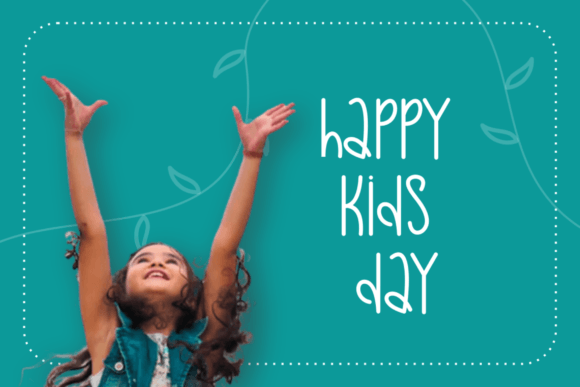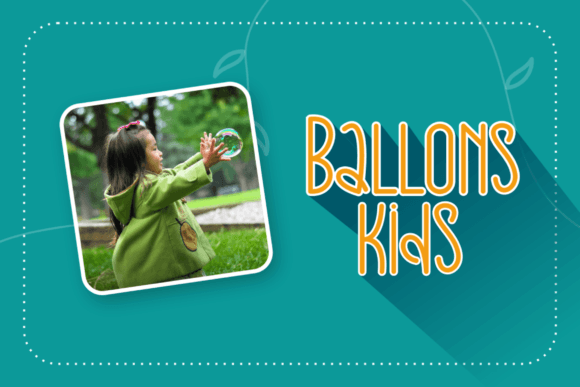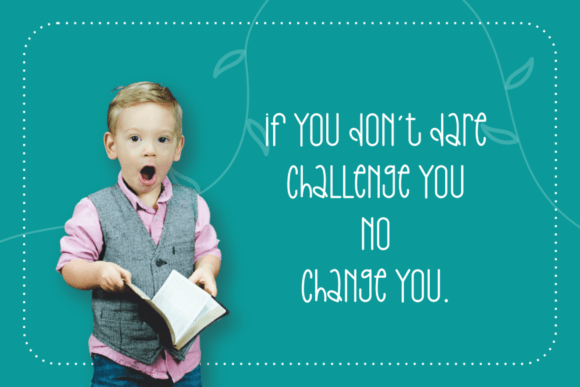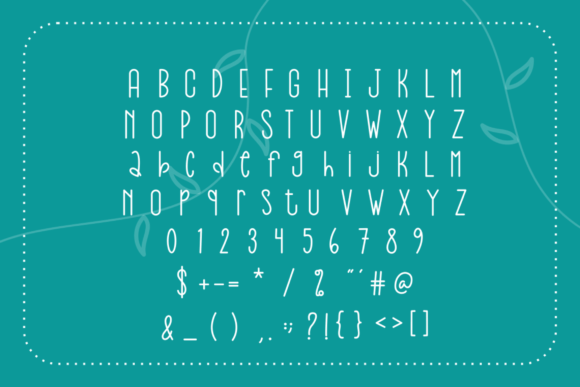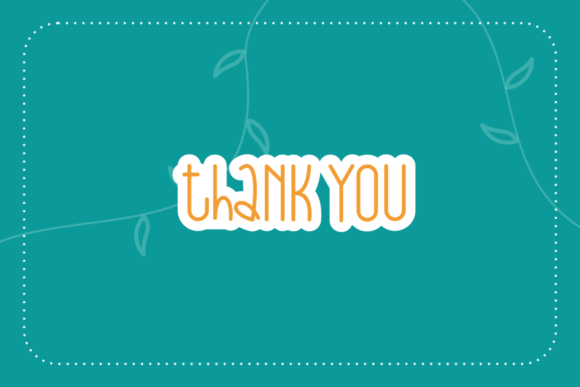
Phinasera Font
About Phinasera Font
**Phinasera Font: Modern and Authentic Handwritten Style**
Phinasera is a modern and authentic handwritten font that adds a contemporary and distinctive flair to your design projects. This versatile font can be used effectively in various contexts to create a lasting impression. Here are some key ways to leverage the Phinasera font:
1. **Logo Design:** Craft unique and memorable logos for diverse businesses and industries. Phinasera’s modern and authentic style can help your brand make a strong visual statement.
2. **T-Shirt Printing:** Use the font to design custom T-shirts and apparel with a modern and eye-catching appearance. It’s perfect for adding a touch of authenticity to clothing designs.
3. **Exports and Packaging:** Apply the Phinasera font to export labels, packaging, and branding materials to give your products a contemporary and distinctive identity.
4. **Posters and Banners:** Design impactful posters and banners for events, promotions, or marketing campaigns. The modern letters of Phinasera will capture attention.
5. **Branding Materials:** Incorporate the font into various branding materials such as business cards, brochures, and promotional materials to convey a sense of modernity and authenticity.
6. **Social Media Graphics:** Create attention-grabbing social media posts, advertisements, and graphics using Phinasera to reinforce your brand’s modern presence online.
7. **Signage:** Use the font for signage and wayfinding in retail spaces, exhibitions, or public areas to make information easily readable and visually appealing.
8. **Headlines and Titles:** Make headlines, titles, and headings in magazines, newspapers, or websites modern and impactful with Phinasera.
9. **Book Covers:** Apply the font to book cover designs, particularly for genres that require a modern and authentic visual style.
10. **Product Labels:** Customize product labels for a wide range of items, from beverages to cosmetics, to make them instantly recognizable.
11. **Editorial Design:** Use Phinasera for editorial layouts, bringing a unique and contemporary style to magazine articles, features, and columns.
12. **Merchandise:** Apply the font to merchandise such as mugs, posters, and accessories to create modern and authentic branded products.
13. **Typography Art:** Create typography-based artwork and wall decor that showcases Phinasera’s modern and authentic handwritten style.
14. **Packaging Design:** Design packaging for various products, emphasizing their modern and distinctive qualities with Phinasera.
15. **Brand Identity:** Develop a modern and authentic brand identity with Phinasera as a central element, ensuring consistency across all brand materials.
Phinasera’s modern and authentic handwritten aesthetic makes it a valuable addition to your font collection, ideal for projects that require a contemporary and distinctive visual impact. Whether you’re designing for branding, marketing, or personal creative endeavors, Phinasera can help you achieve a modern and memorable look.